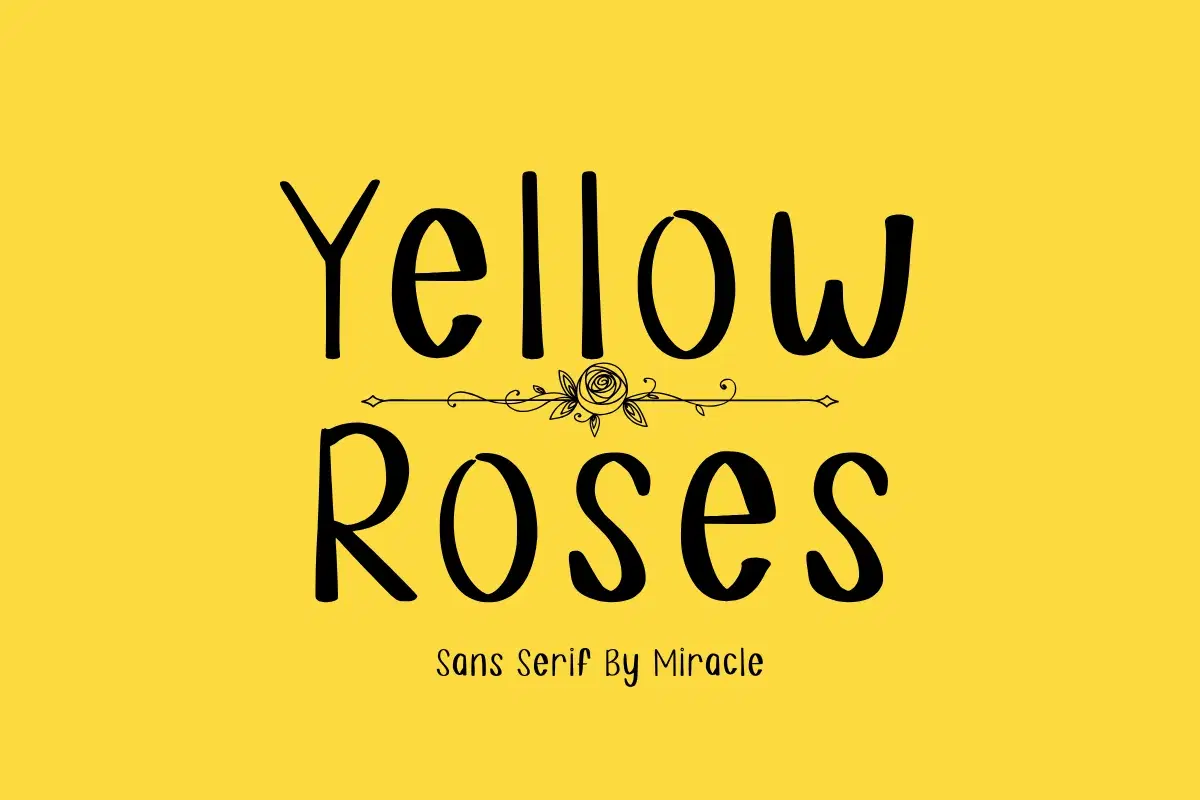
Brighten up your creative world with Yellow Roses, a charming and cheerful sans serif font by Miracle. Featuring tall, clean letterforms and a warm hand-drawn aesthetic, this font captures the essence of a sunny garden. It is the perfect choice for designers looking to add a touch of joy, optimism, and floral elegance to their work.
Yellow Roses is highly legible and versatile, making it ideal for both digital and print projects. Whether you are building a brand identity for a boutique or creating vibrant social media content, this font brings a fresh and "sunny" personality to every design.